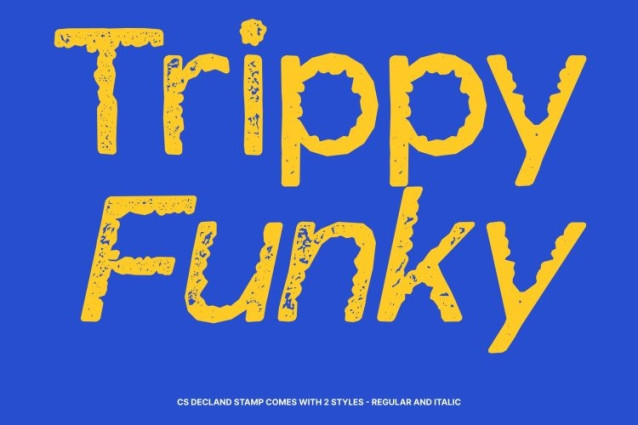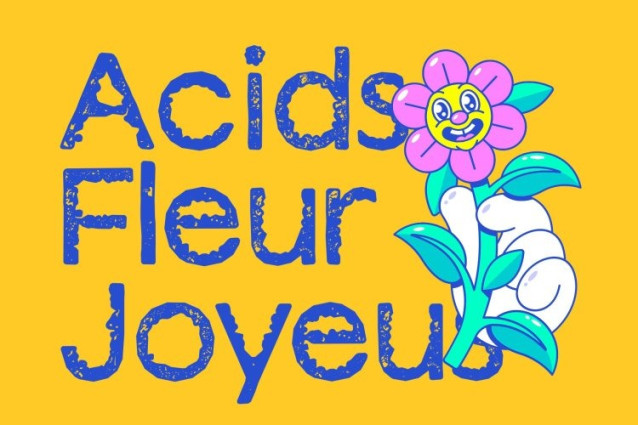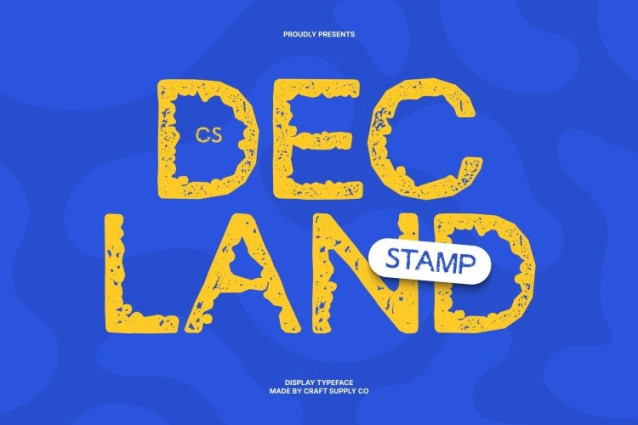
CS Decland Stamp Font
CS Decland Stamp Font – This is a psychedelic display font bursting with movement, personality, and visual excitement. Its curved, distorted, and flowing letterforms create a playful rhythm that instantly draws attention. Designed to feel adventurous and expressive, the font transforms text into a vibrant visual centerpiece.
Psychedelic Spirit with Stamp Texture
Enhanced with a stamp effect, the font gains a tactile, slightly worn texture that adds warmth and retro character. The subtle imperfections and ink-like finish give the lively letterforms a handcrafted, vintage feel perfectly complementing its psychedelic personality.
Energetic and Expressive Visual Impact
This font brings a dynamic atmosphere to every design. Its bold shapes and imaginative style evoke creativity, joy, and freedom of expression, making it ideal for projects that celebrate individuality and artistic exploration.
Perfect for Posters, Music, and Creative Branding
This font shines in music posters, festival graphics, event promotions, merchandise, and expressive branding. Wherever vibrant creativity is needed, this font delivers a colorful and unforgettable typographic statement.